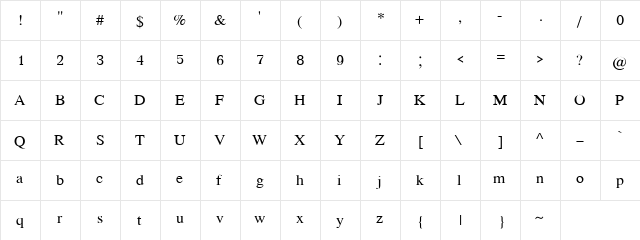
KodchiangUPC Regular
Design Context for KodchiangUPC Typeface
KodchiangUPC is a composed and adaptable typeface that performs quietly and consistently across a wide range of design contexts.